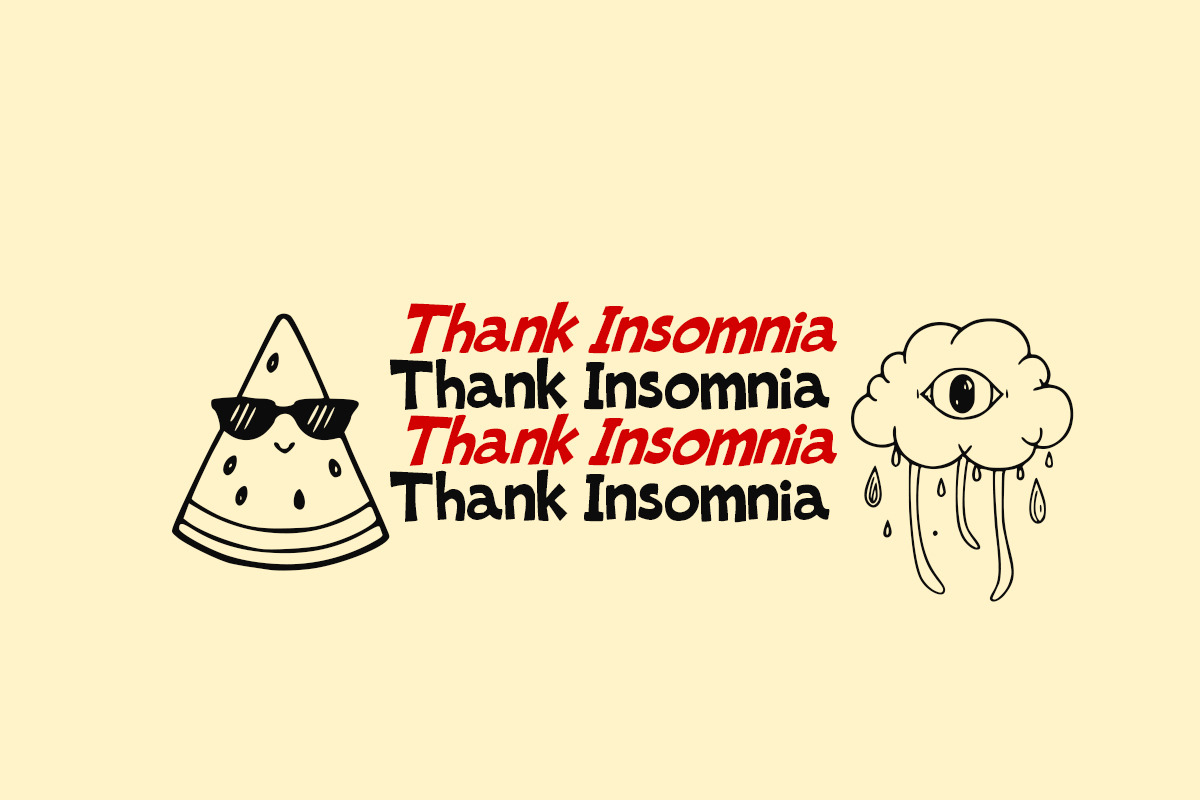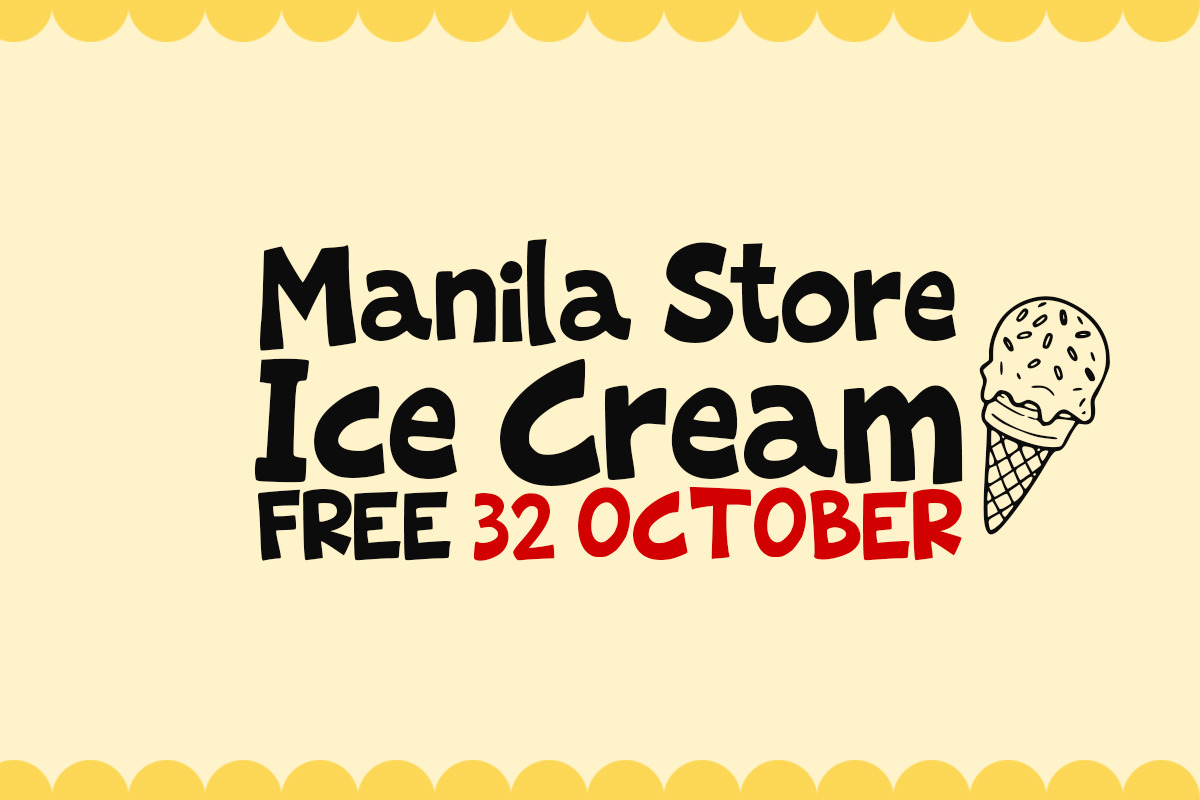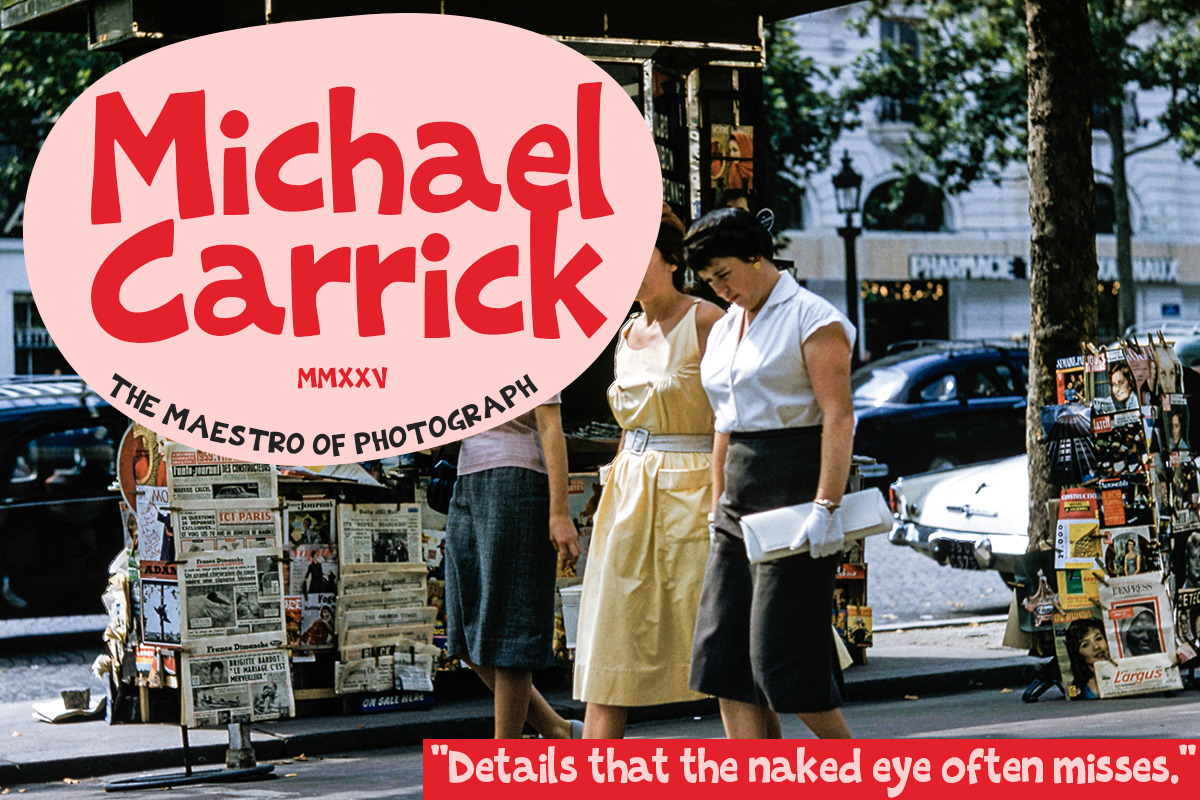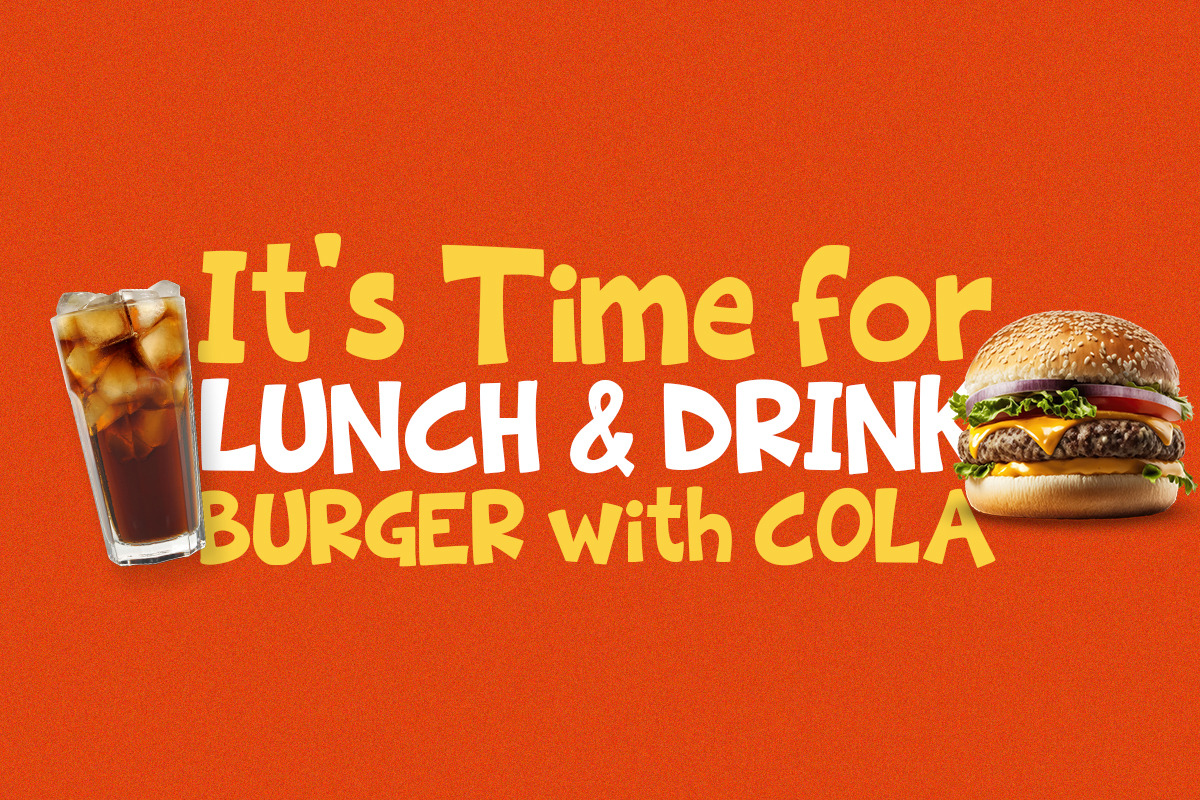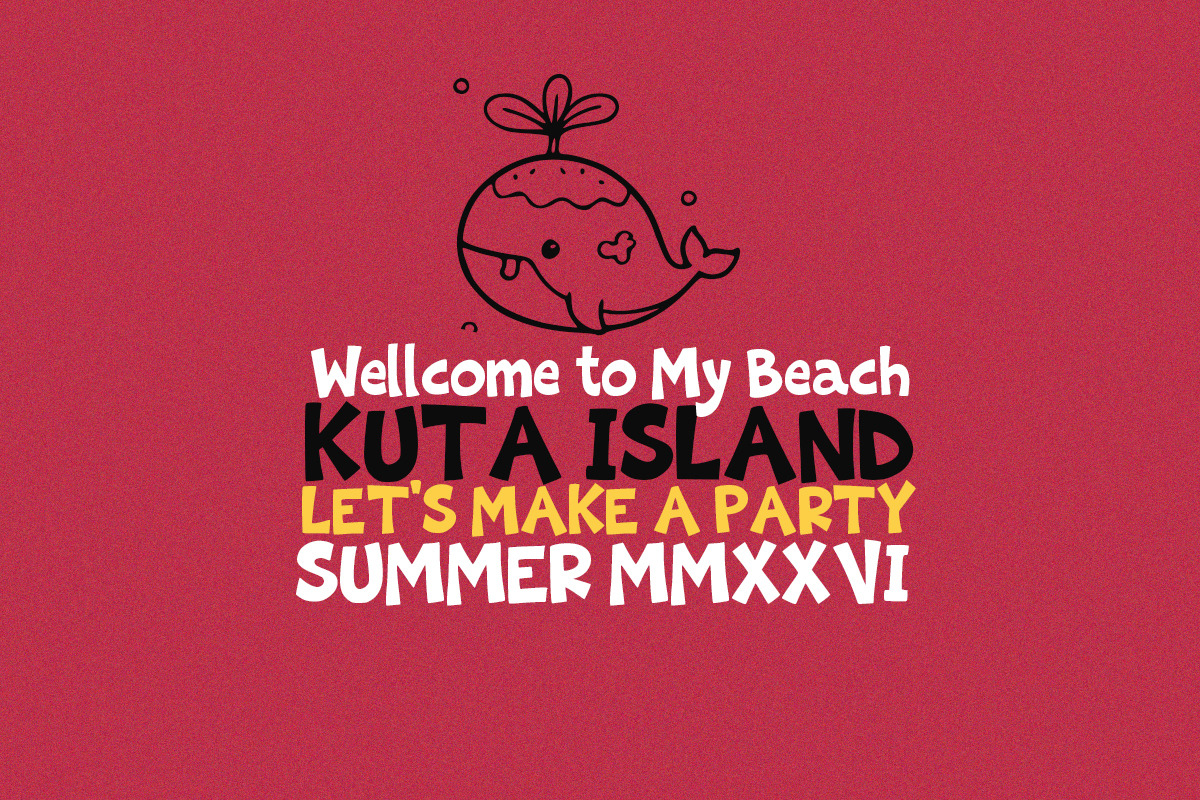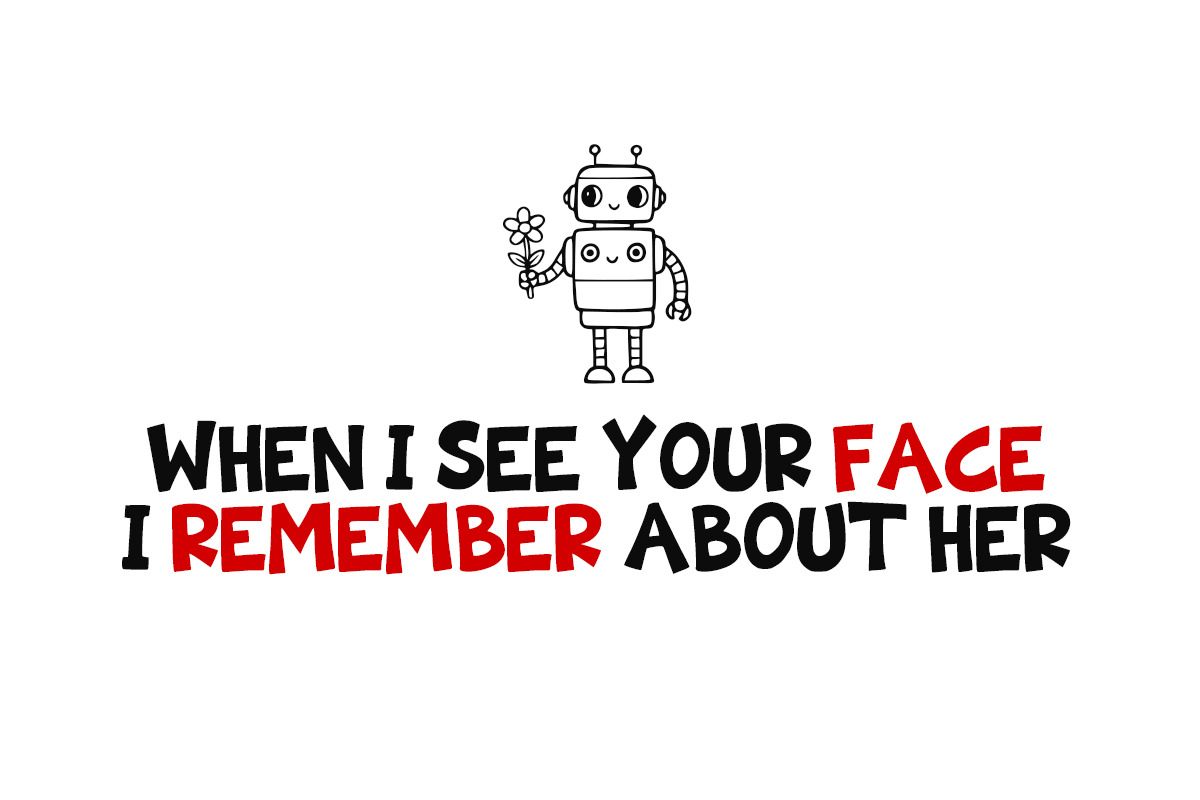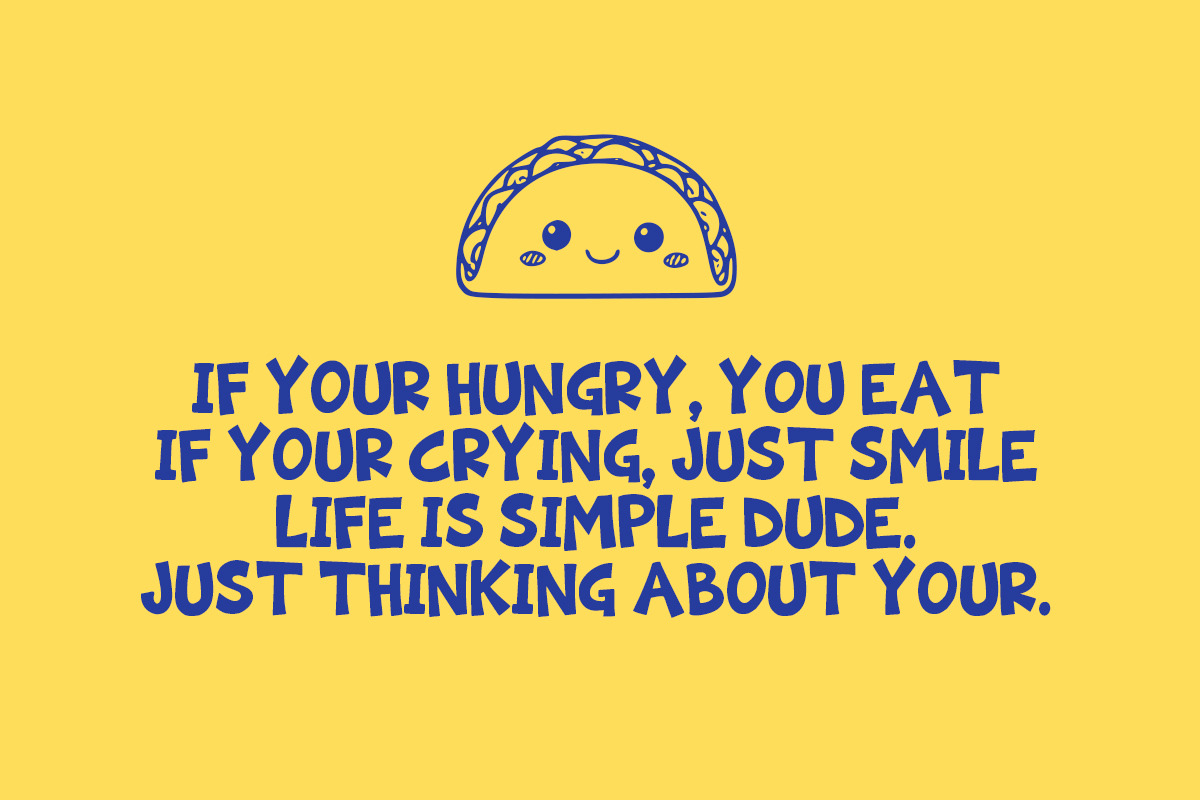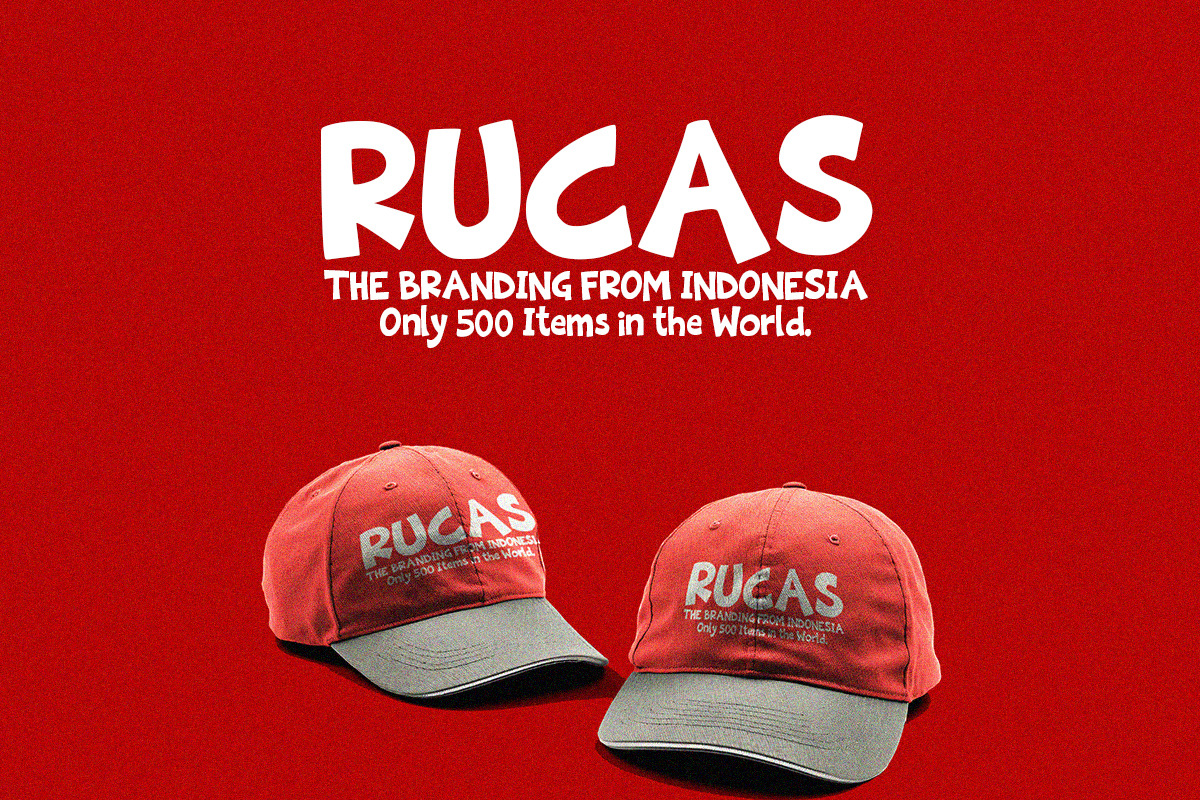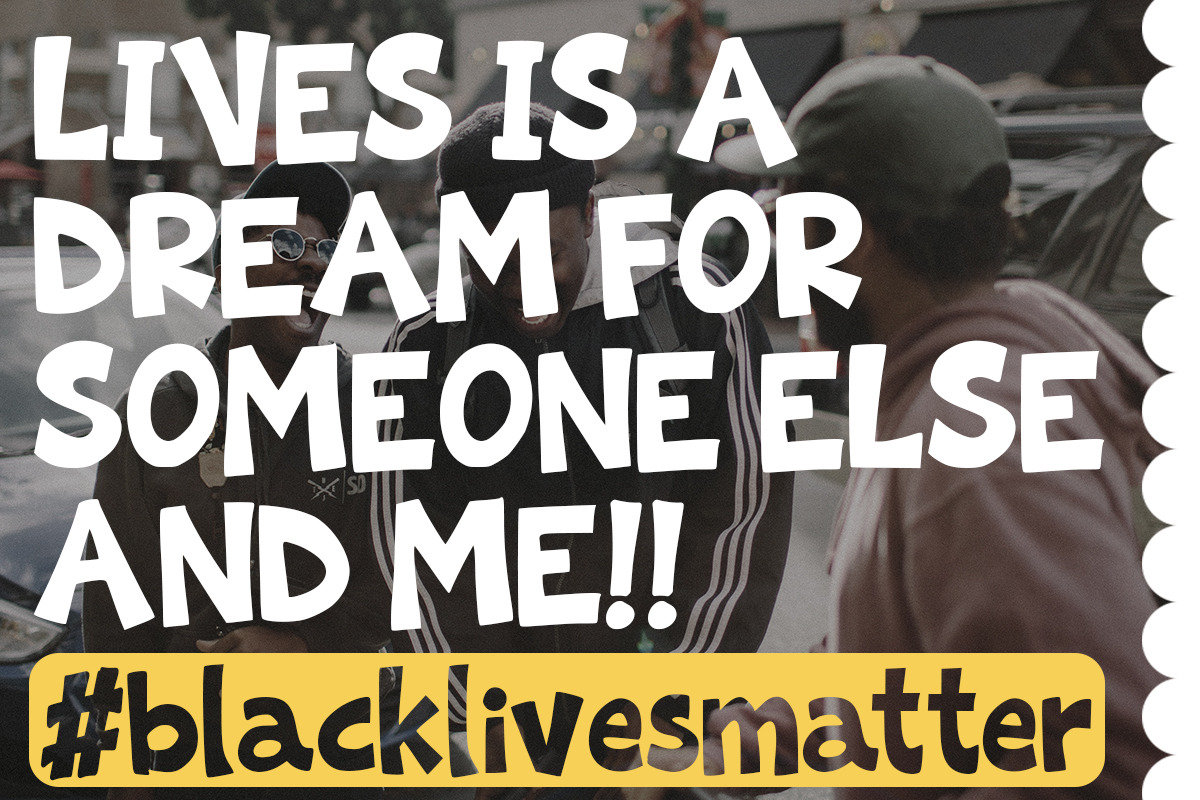
Rolling Stones – A Playful & Groovy
Rolling Stones – A Playful & Groovy Handwritten Font Bring a sense of joy and whimsy to your designs with Rolling Stones, a handcrafted display font designed by Struggle Studio. Featuring thick, organic strokes and a bouncy rhythm, this font is all about personality and fun.
Key Features: Unique Character: Each letter is carefully drawn to maintain a casual, "imperfect" feel that adds an authentic human touch to digital work.
Whimsical Vibe: With its rounded edges and bold weight, it’s perfect for projects that need to feel friendly, approachable, and energetic.
Bonus Extras: This package includes a set of hand-drawn vector extras—including space-themed doodles like planets and UFOs—to help you create a cohesive look instantly.
Perfect For: Children’s Branding: Books, toy packaging, and apparel.
Social Media: Eye-catching quotes, YouTube thumbnails, and Instagram stories.
Merchandise: T-shirt designs, stickers, and tote bags.
Event Stationery: Birthday invitations, posters, and greeting cards.
Add a touch of cosmic fun to your creative toolkit with Rolling Stones!